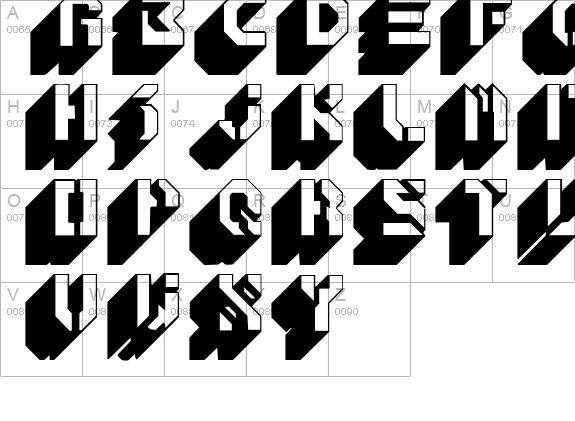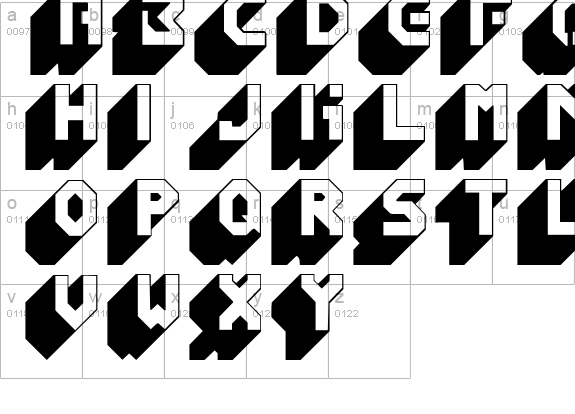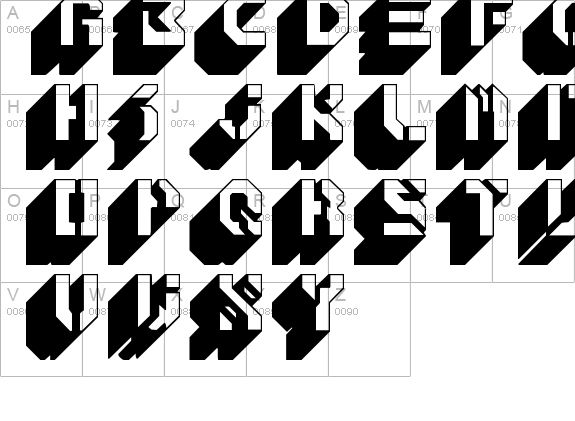
Introducing Blockbuster, a bold and captivating font that is sure to make a statement in any design project. With its strong and commanding presence, Blockbuster is perfect for headlines, titles, logos, and more. This font exudes power and confidence, with its thick and solid letterforms that demand attention. Each character is meticulously crafted, showcasing a unique combination of sharp angles and rounded edges, creating a perfect balance between strength and elegance. Blockbuster is not only visually striking, it is also incredibly versatile. Whether you're designing a movie poster, a book cover, or a website header, this font will effortlessly convey the desired message and captivate your audience. What makes Blockbuster even more remarkable is that it is freely available to download at FontsMarket.com. Yes, you read that right – this exceptional font can be yours without any cost. It's a true gem for designers who are looking to add a touch of boldness and sophistication to their projects, without breaking the bank. So why wait? Download Blockbuster now and unleash its powerful potential in your designs. Whether you're a professional designer or a typography enthusiast, this font will undoubtedly elevate your work to new heights. Don't miss out on this incredible opportunity to enhance your creative endeavors with Blockbuster font, available exclusively at FontsMarket.com.